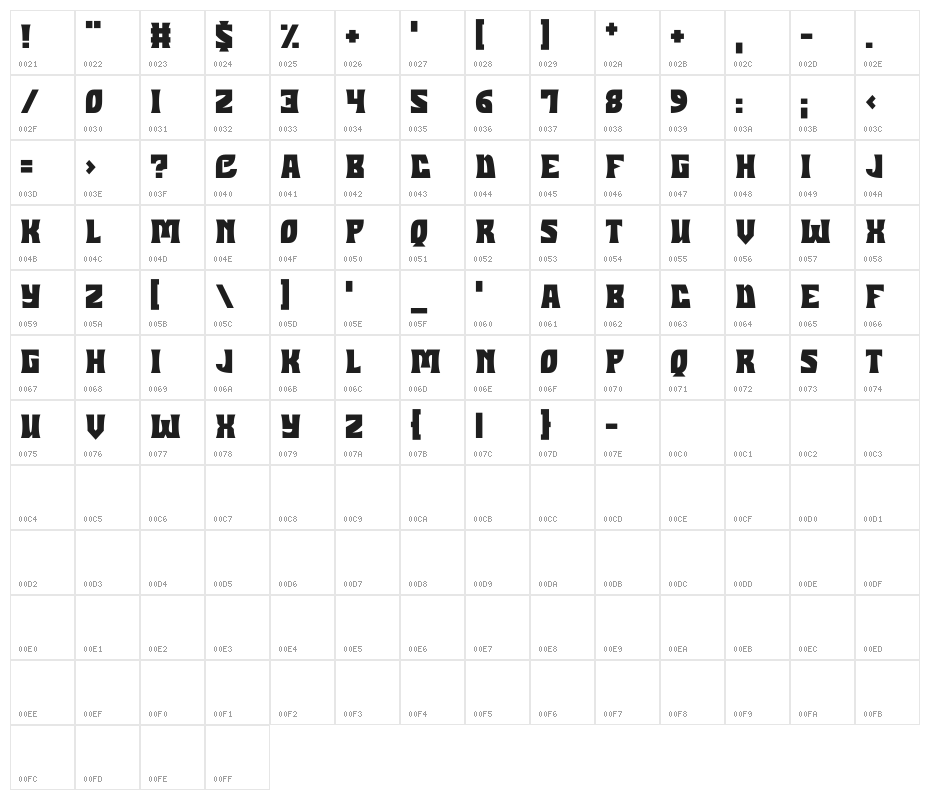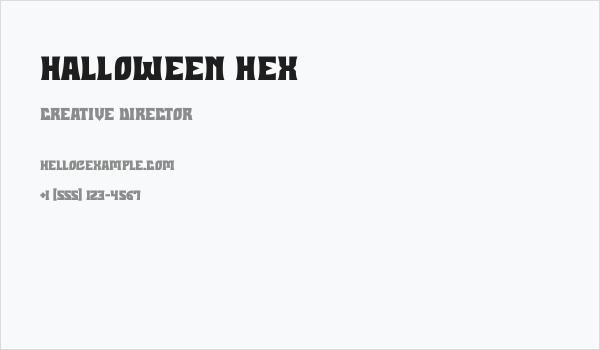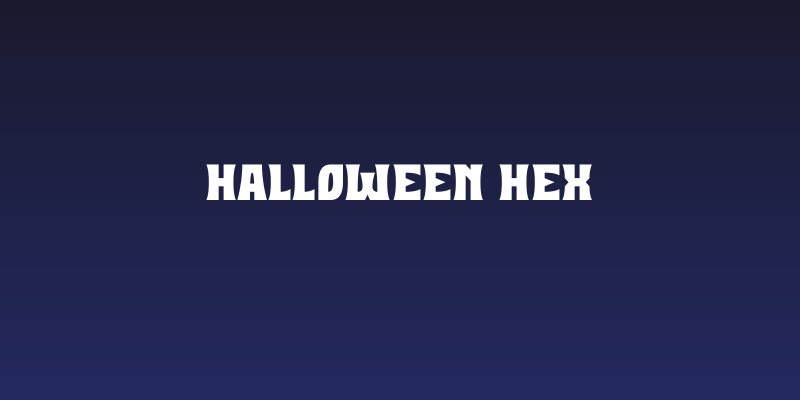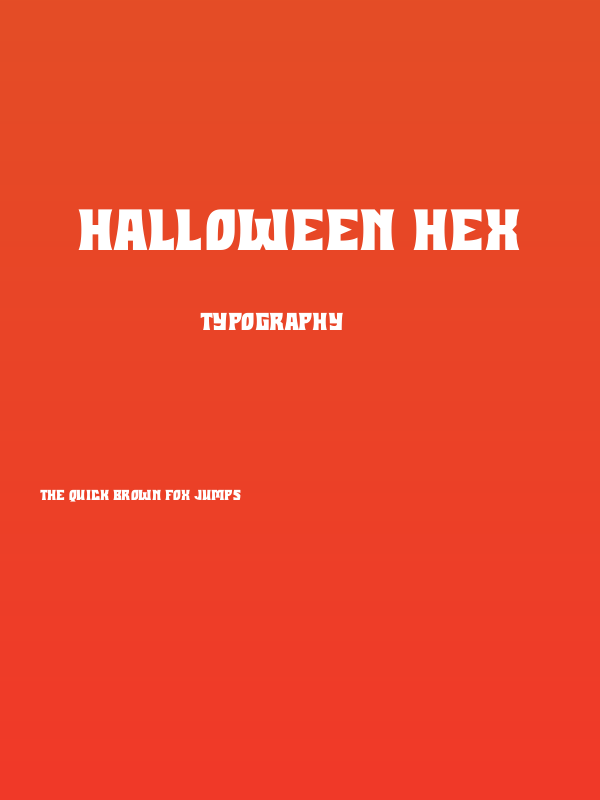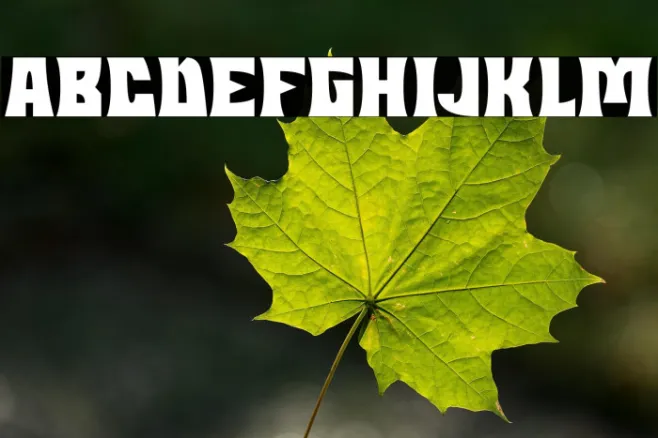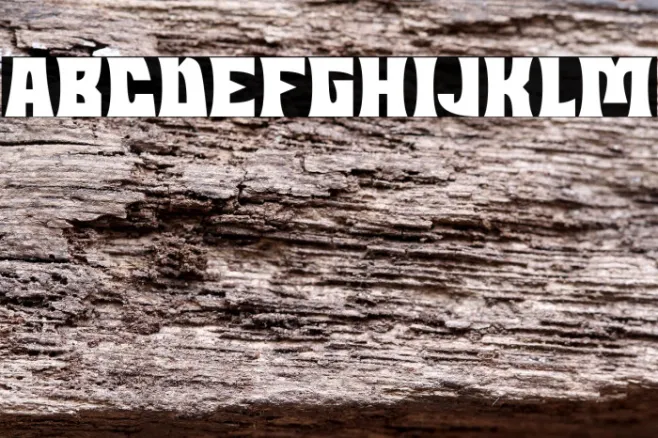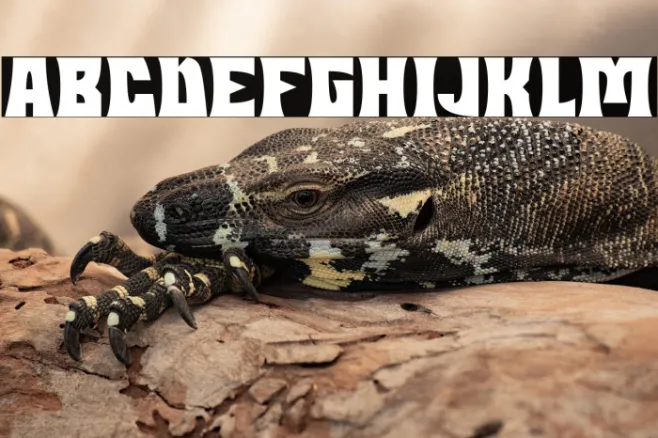
Halloween Hex Font
Halloween Hex Description
This font features a bold and striking design with sharp, angular edges and a slightly condensed form. The characters have a distinct, spooky aesthetic, making them ideal for themes related to Halloween or horror. The uppercase and lowercase letters maintain a consistent style, with exaggerated serifs and unique cuts that give each character a dynamic appearance. The numbers and special characters follow the same design principles, ensuring a cohesive look across all text elements. This font's bold presence and decorative style make it stand out in any design.
| Proposed Projects | Ideal for Halloween-themed posters, horror movie titles, spooky event invitations, and themed merchandise. |